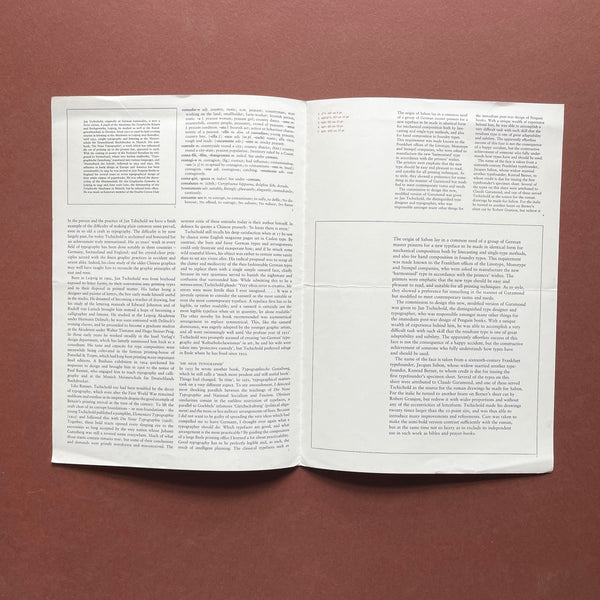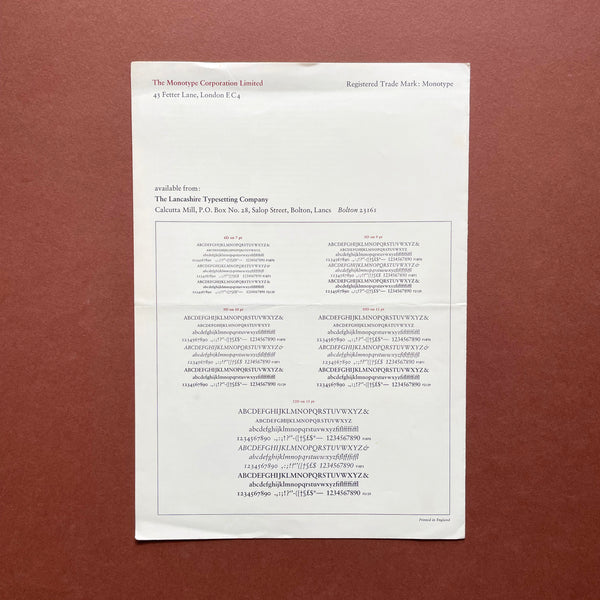
A new typeface by Jan Tschichold - ‘Monotype’ Sabon and Sabon Semi-bold type specimen
(Introduction) 'Sabon has been jointly developed and manufactured by Linotype GmbH, Setzmaschinen-Fabrik Monotype GmbH and D. Stempel AG of Frankfurt, in response to a common need of German master printers for a typeface to be made in identical form for mechanical composition by linecasting and single-type methods, and also for hand composition in foundry type. The commission was given to the distinguished typographer and type designer, Jan Tschichold, whose adroit skill and sympathetic understanding of the problems involved has resulted in the design of a typeface of great character and adaptability...'